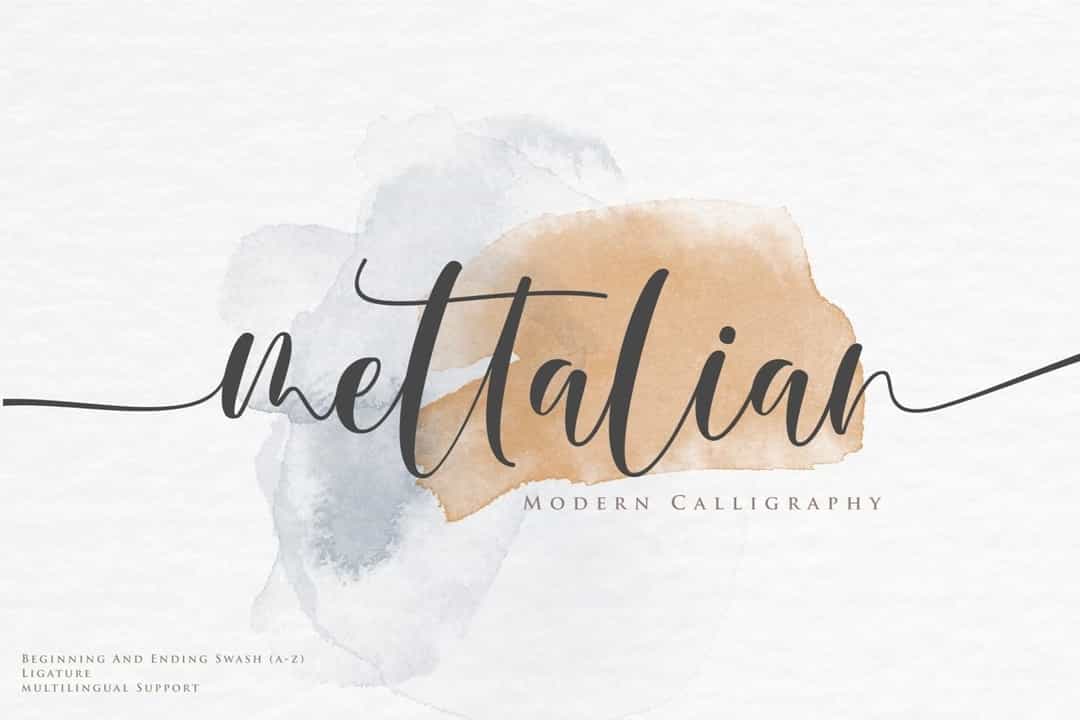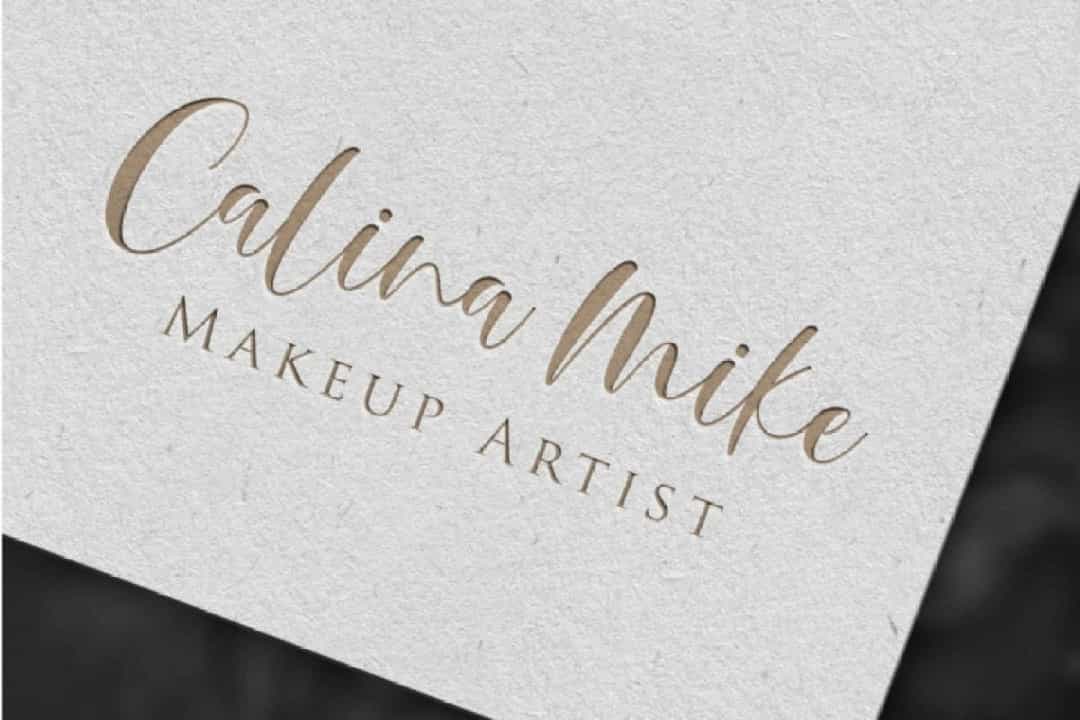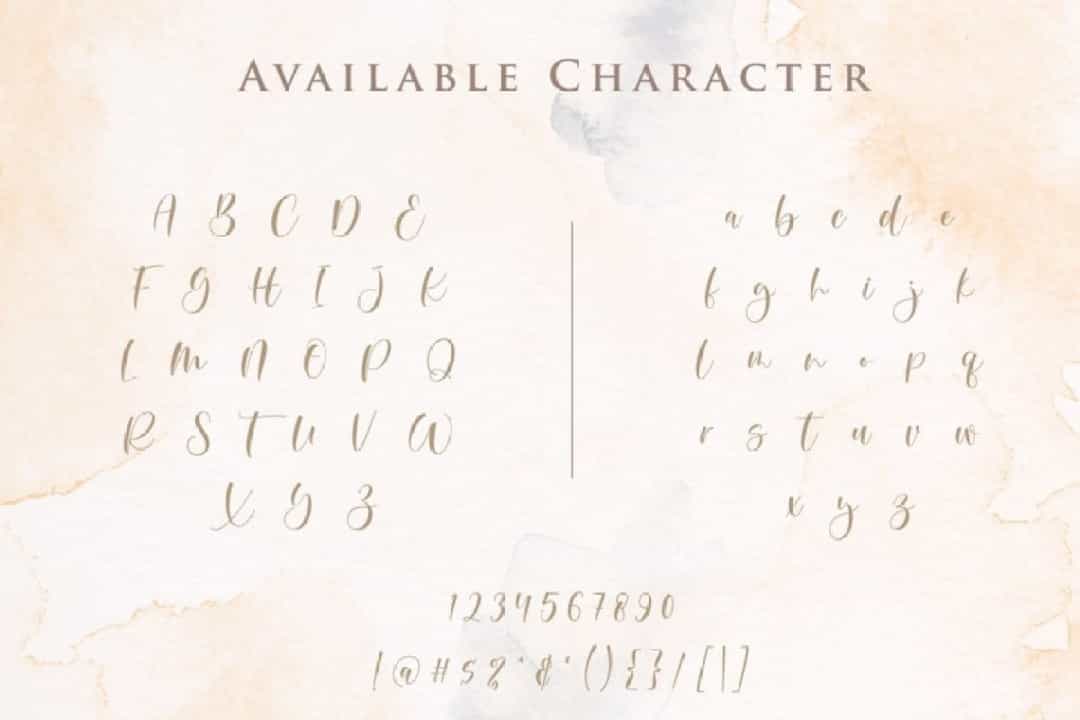
Mettalian Font is a modern calligraphy script type designed for branding and signatures, wedding invitations promotional packaging for products logo quotes amongst many other uses. This font is easy to read yet authentic and comes equipped with uppercase numerals letters punctuation multilingual symbols lowercase ending and beginning swashes along with ligatures – making this font suitable for many different purposes!